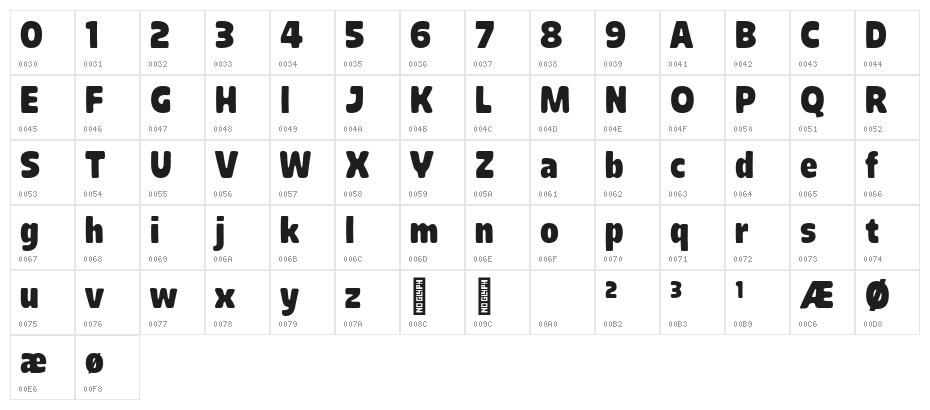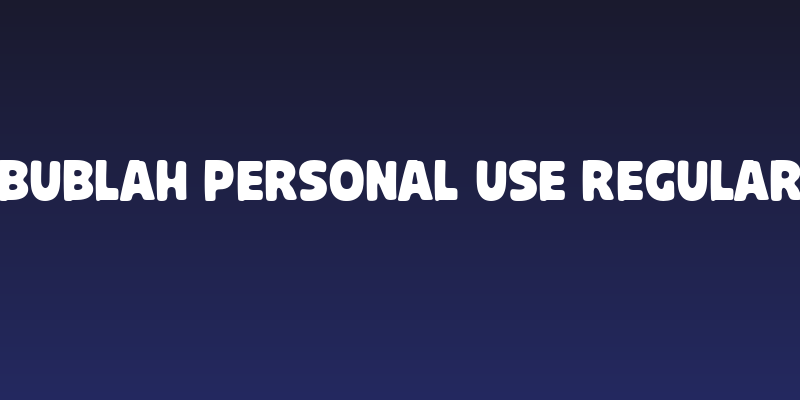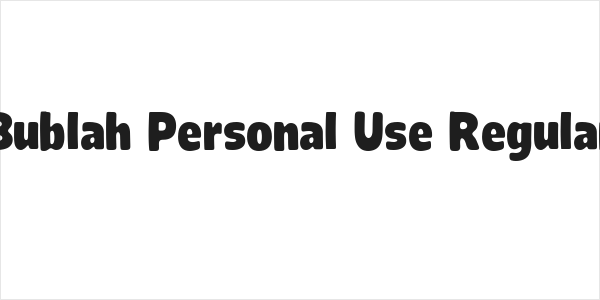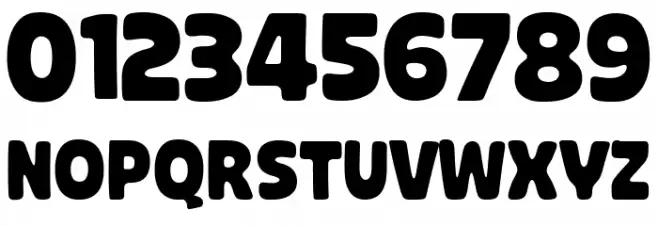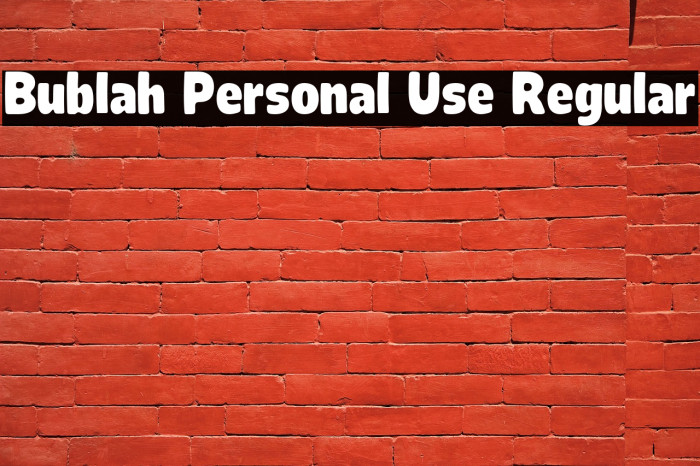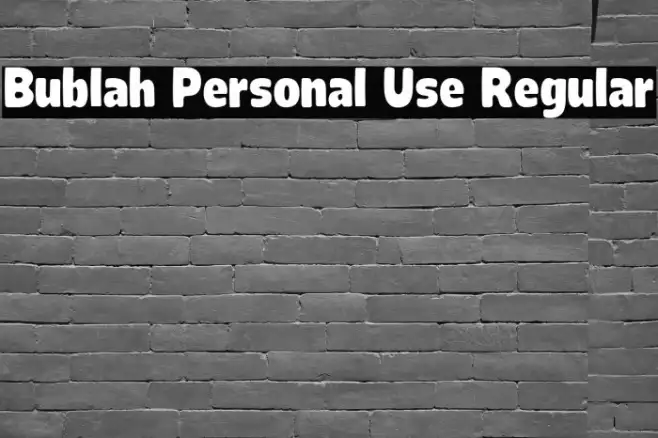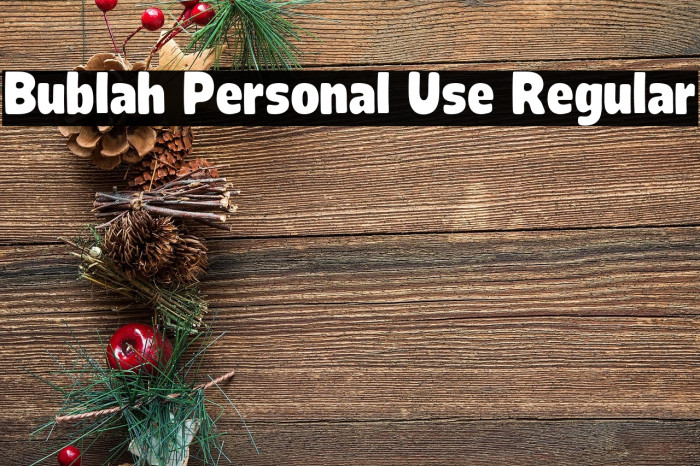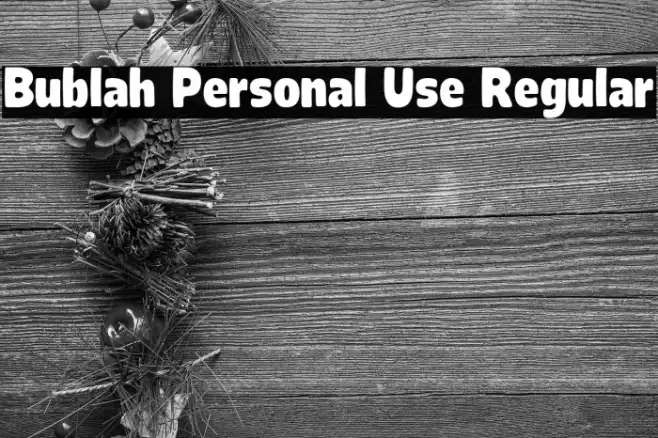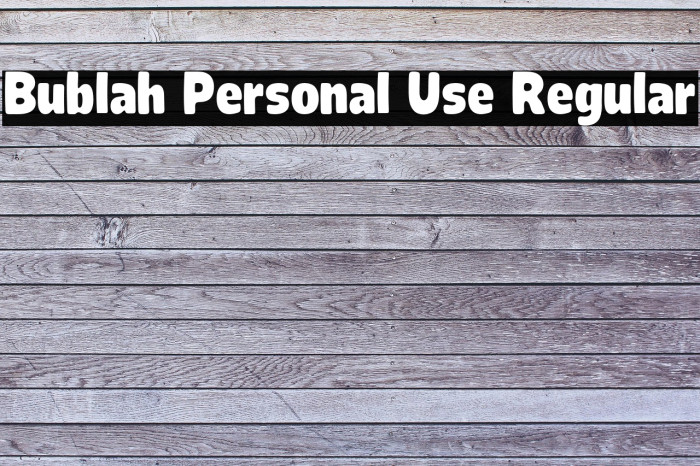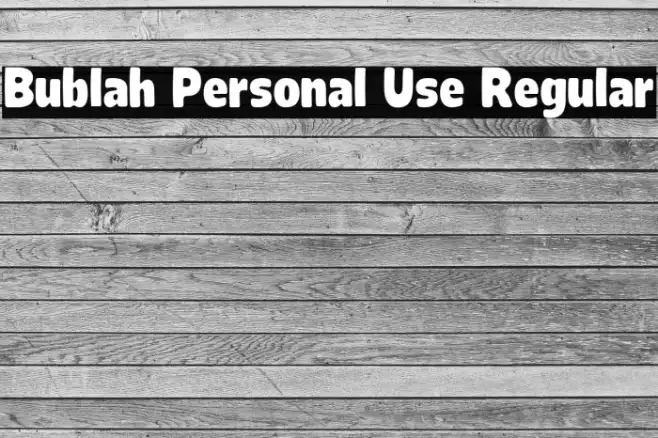
Bublah Personal Use Regular Font
Bublah Personal Use Regular Description
This font features a bold and playful style with rounded edges and a bubbly appearance. The characters are thick and uniform, giving it a friendly and approachable look. The uppercase and lowercase letters maintain a consistent weight, enhancing readability while adding a touch of whimsy. The numbers and special characters follow the same design principles, ensuring a cohesive look across all text elements. This font is perfect for projects that require a fun and informal tone.
| Overall Style | Playful, Fun |
| Proposed Projects | Ideal for children's books, playful branding, party invitations, and casual social media graphics. |